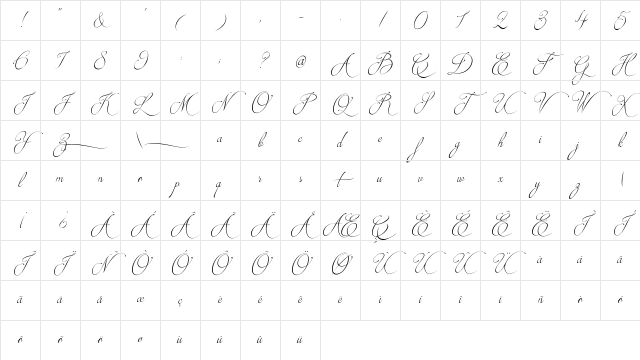
Brotherhood Script Regular Free Font
Brotherhood Script Regular
Foundry: Youssef Habchi
Designer: Youssef Habchi
Year: 2014
Design Context for Brotherhood Script
Brotherhood Script flows with the natural rhythm of handwritten lettering, making it ideal for designs that call for warmth and personal expression.
Font Pairing: Combine Brotherhood Script with a simple geometric sans for maximum contrast - the tension between flowing curves and clean structure is a classic typographic pairing.
Pro Tip: Use Brotherhood Script for short runs of text - names, titles, or taglines. Extended body copy in script faces tires the eye quickly.